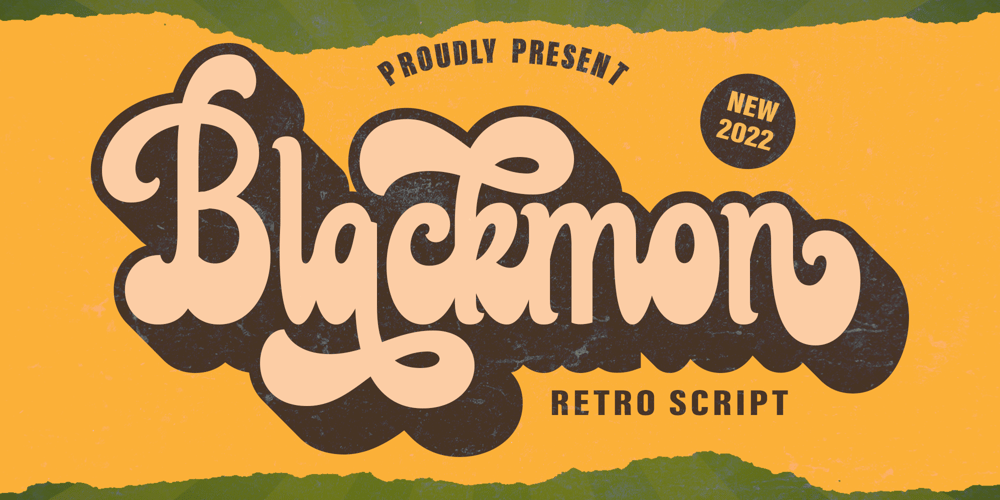
Blackmon Font Family was designed by Dida Ahluddin and published by ahweproject. Blackmon contains 2 styles and family package options. Blackmon is a retro, bold script font that will bring you back to the 60s – 80s. This typeface has an extruded version, so you can create a retro effect with ease. This typeface is perfect for logos, invitations, labels, magazines, books, greeting/wedding cards, packaging, fashion, make-up, stationery, novels, labels, or other advertising purposes.This font is PUA encoded, which means you can access all of the glyphs and swashes with ease!